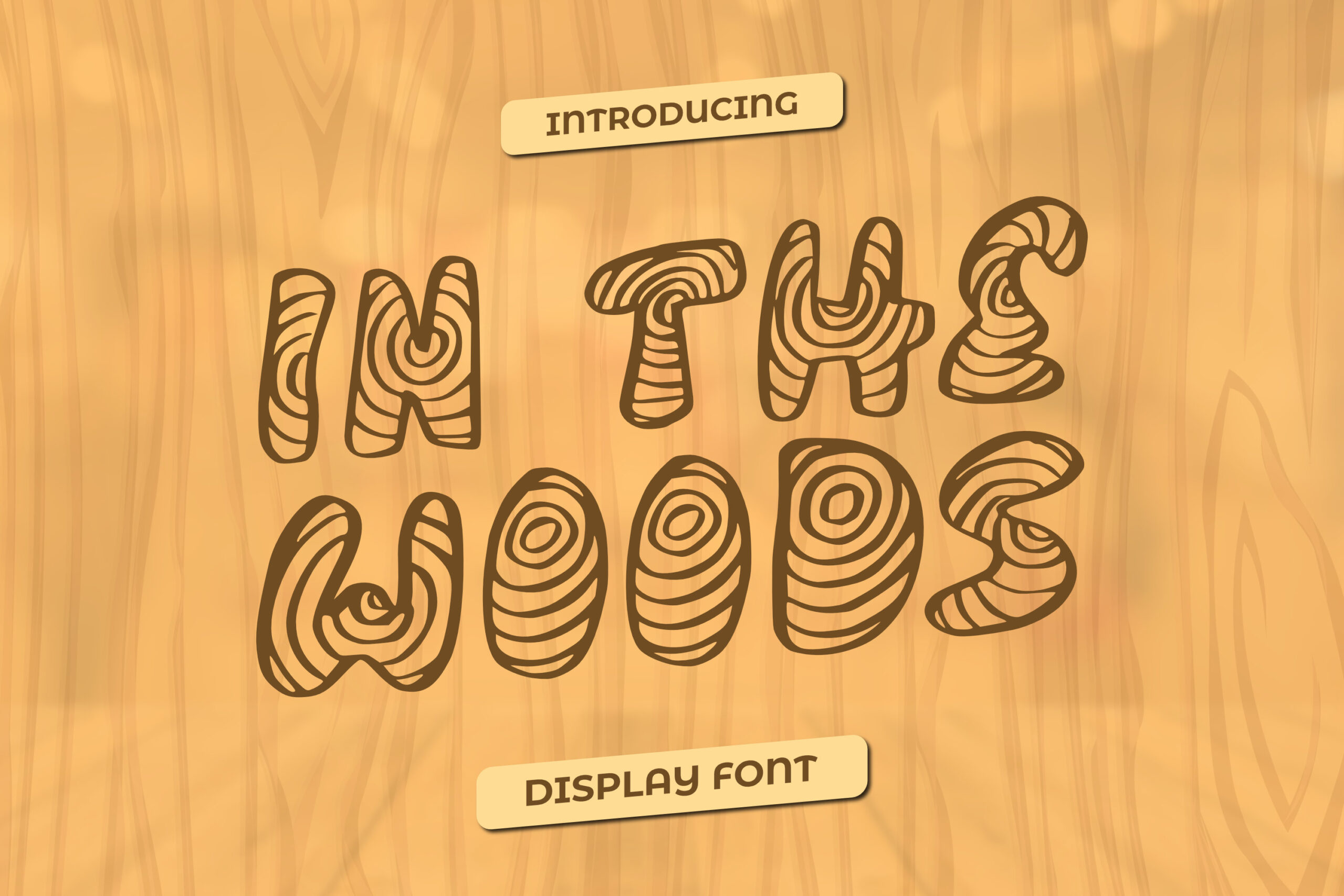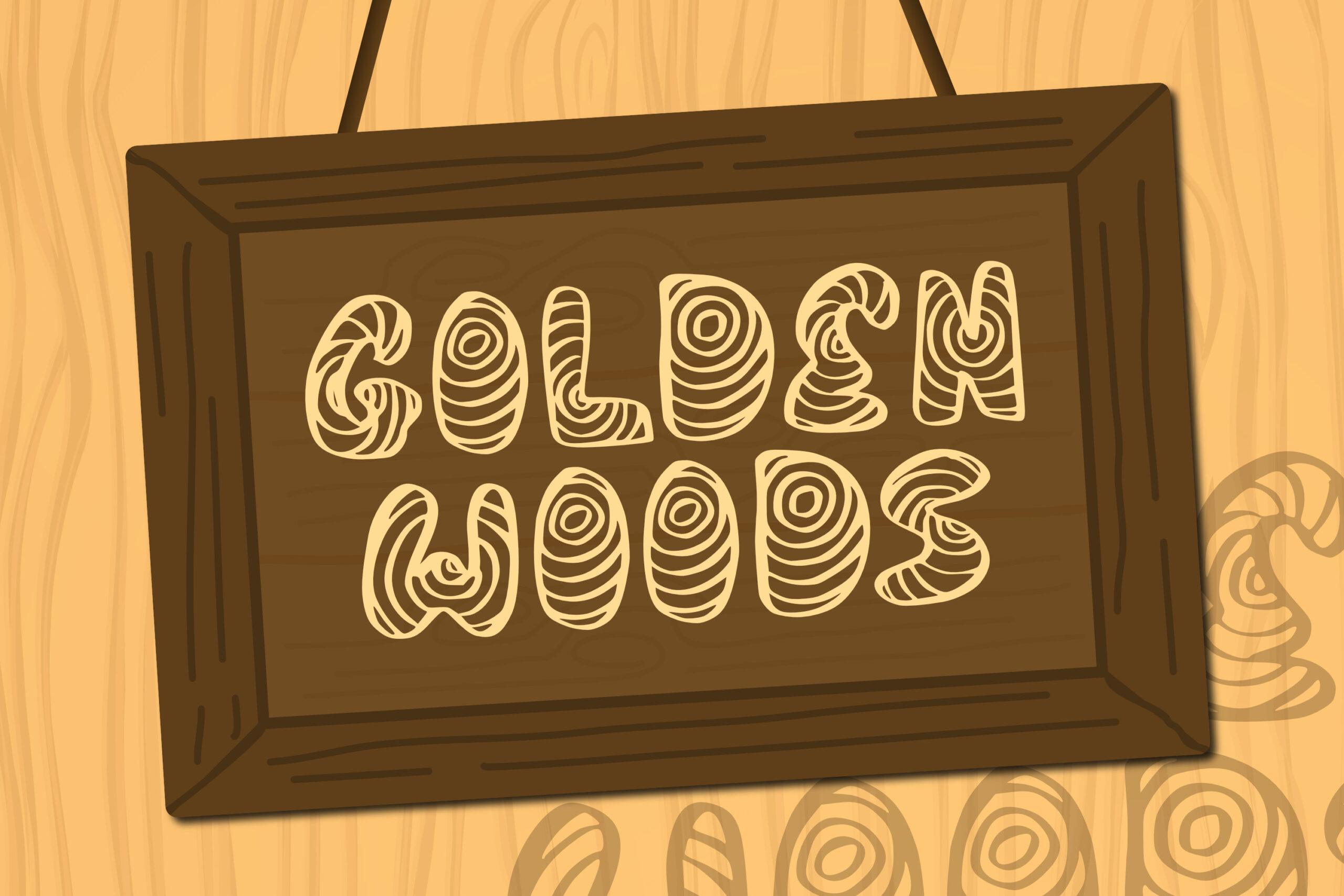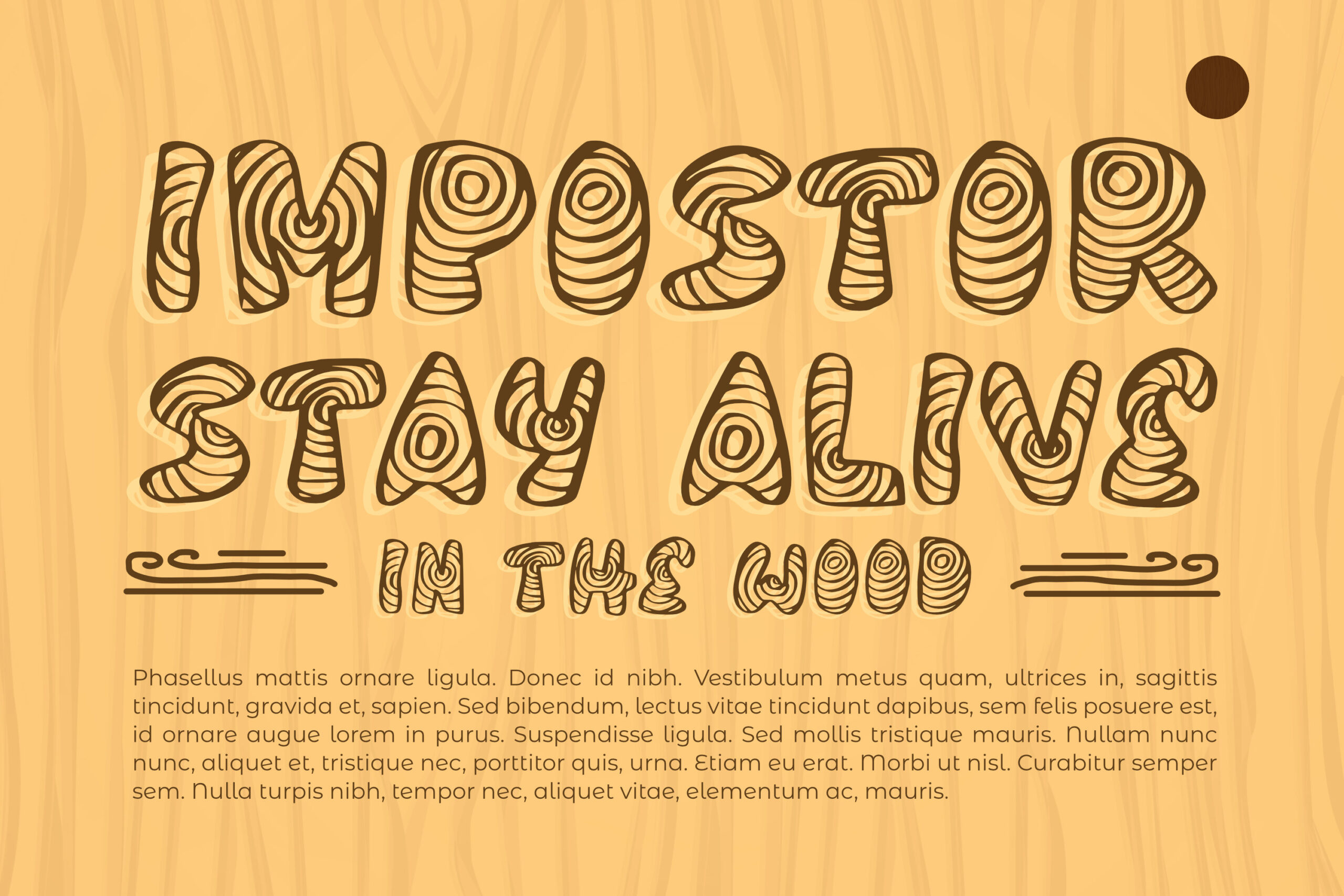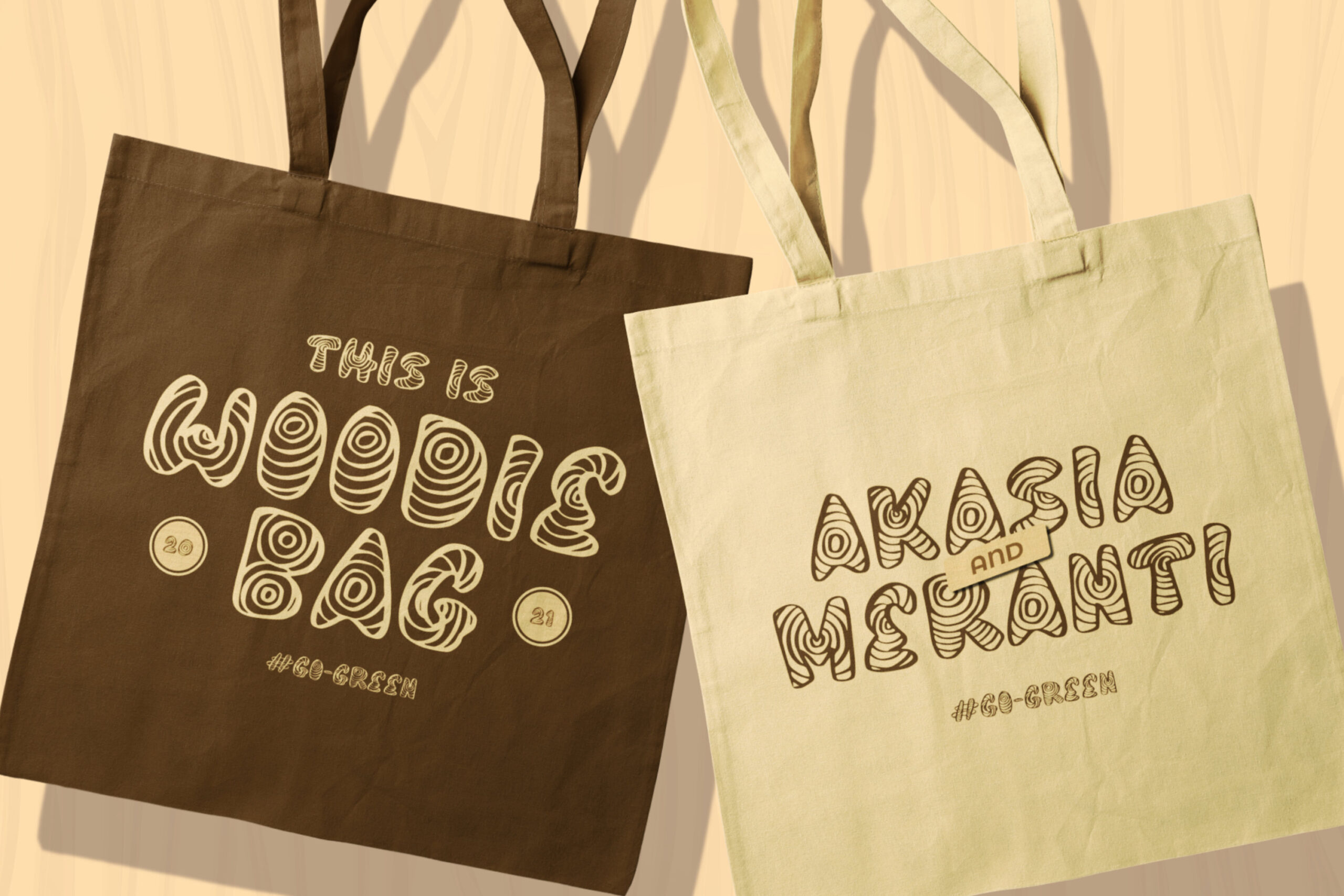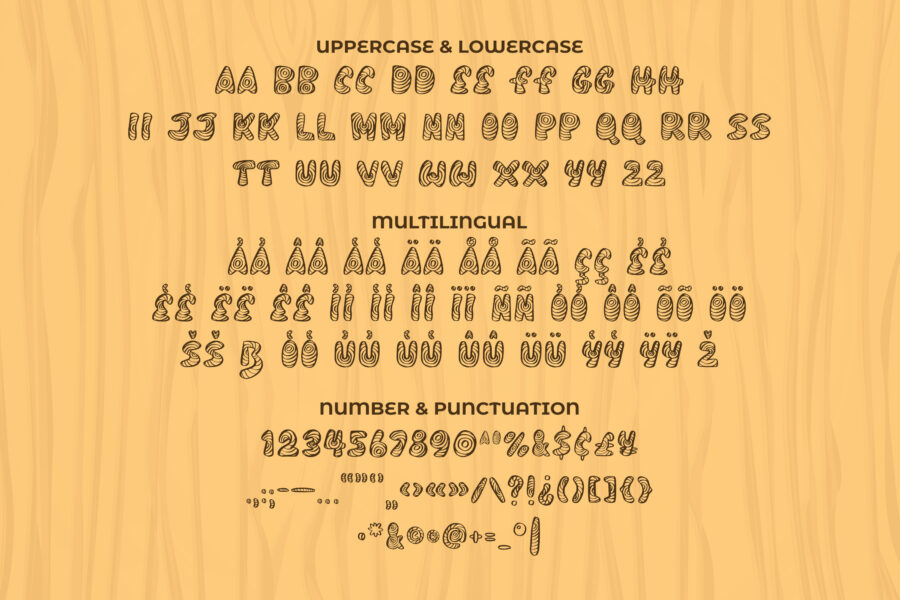
In The Woods is a quirky and organic display font inspired by the textures of tree rings and natural wood grain. Its hand-drawn letterforms mimic the concentric lines found in timber cuts, bringing a rustic, earthy charm to any design. Perfect for nature-themed projects, eco-friendly branding, outdoor signage, or anything that wants to embrace the warm, playful feel of the forest.
This font includes uppercase and lowercase characters, multilingual support, and a variety of punctuation and symbols. Its bold and whimsical appearance makes it a great fit for eco packaging, children’s books, tote bags, posters, and handmade product labels. Bring your creative ideas to life with the naturally bold spirit of In The Woods.